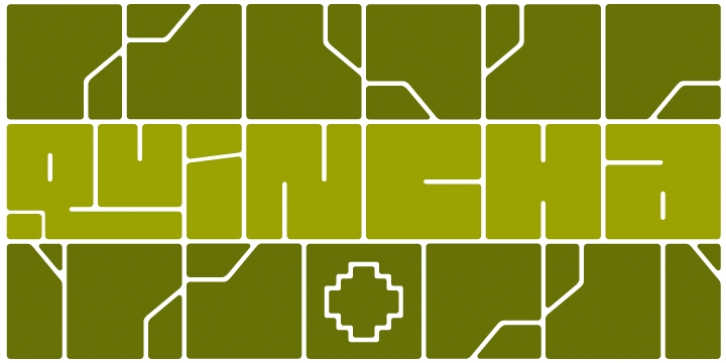
Quincha was designed by Diego Sanz Salas and published by Cocijotype. Quincha contains 1 style.
Quincha is the quechua word for stone wall. The Inca architecture is known around the world for the perfect union between the stones.
Quincha makes of every character a stone to create your own inca wall. It has a lot of contextual ligatures, 9 stone motivs to built your wall, one (trapezoidal) window and the Chakana or Andean cross.